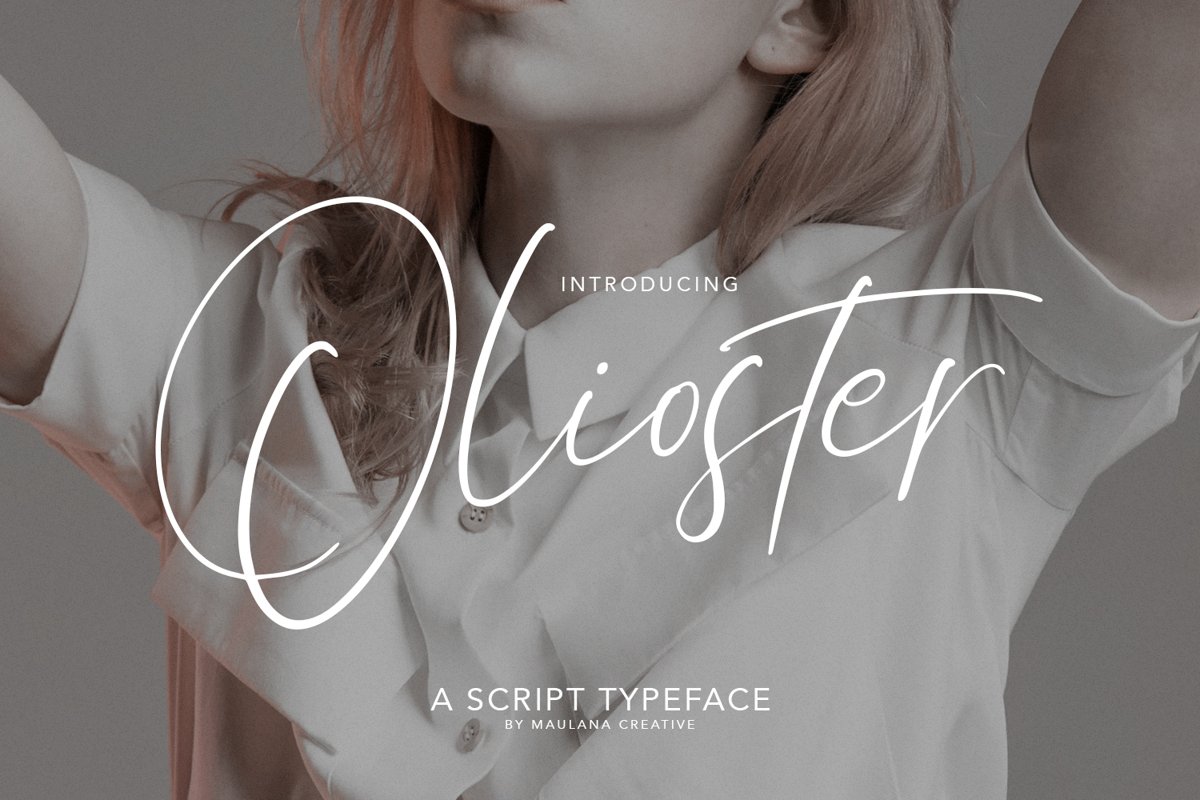
Give your designs an authentic handcrafted feel. “ Olioster Elegant Fashion Script Font” is perfectly suited to signature, stationery, logo, typography quotes, magazine or book cover, website header, clothing, branding, packaging design and more.
Ligature Include:
- all bi cc ee go hi ii ll on oo rr tt xx zo ss